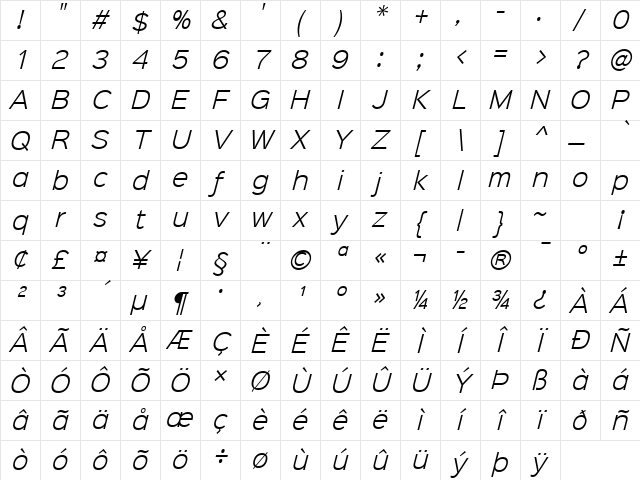
Complete Sinkin Sans 300 Light Italic 300 Light Italic glyph index. Displaying only characters natively supported by Sinkin Sans 300 Light Italic 300 Light Italic font.
Sinkin Sans 300 Light Italic is a composed and adaptable typeface that performs quietly and consistently across a wide range of design contexts. The slanted form adds forward momentum and visual energy. Its slender proportions lend an understated elegance to any composition.
Pro Tip: Use Sinkin Sans 300 Light Italic for emphasis, pull quotes, and subheadings where its slanted energy can add rhythm to the layout.